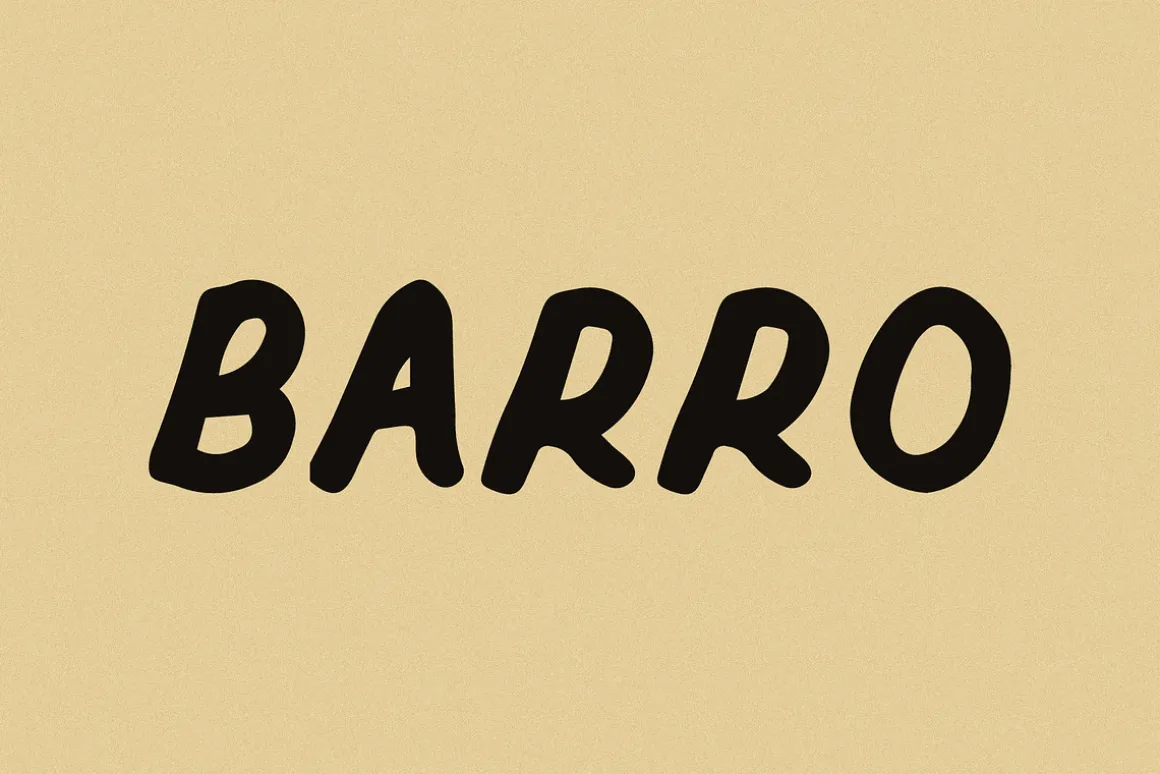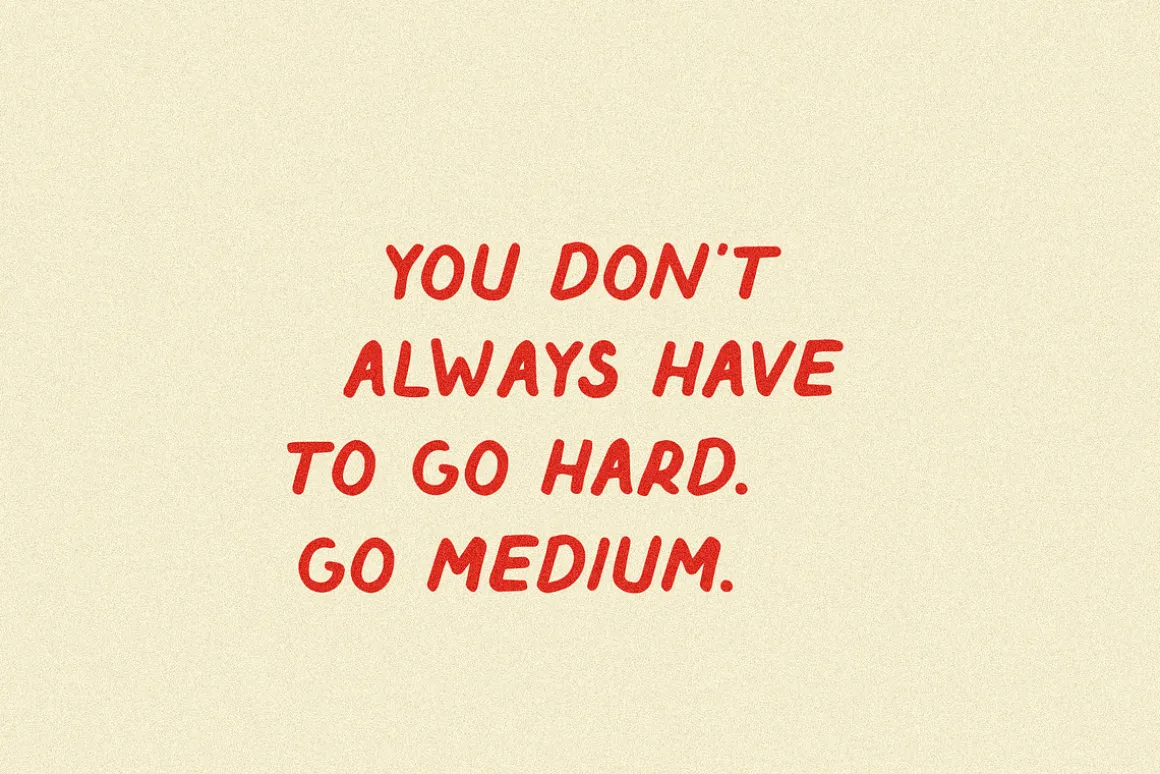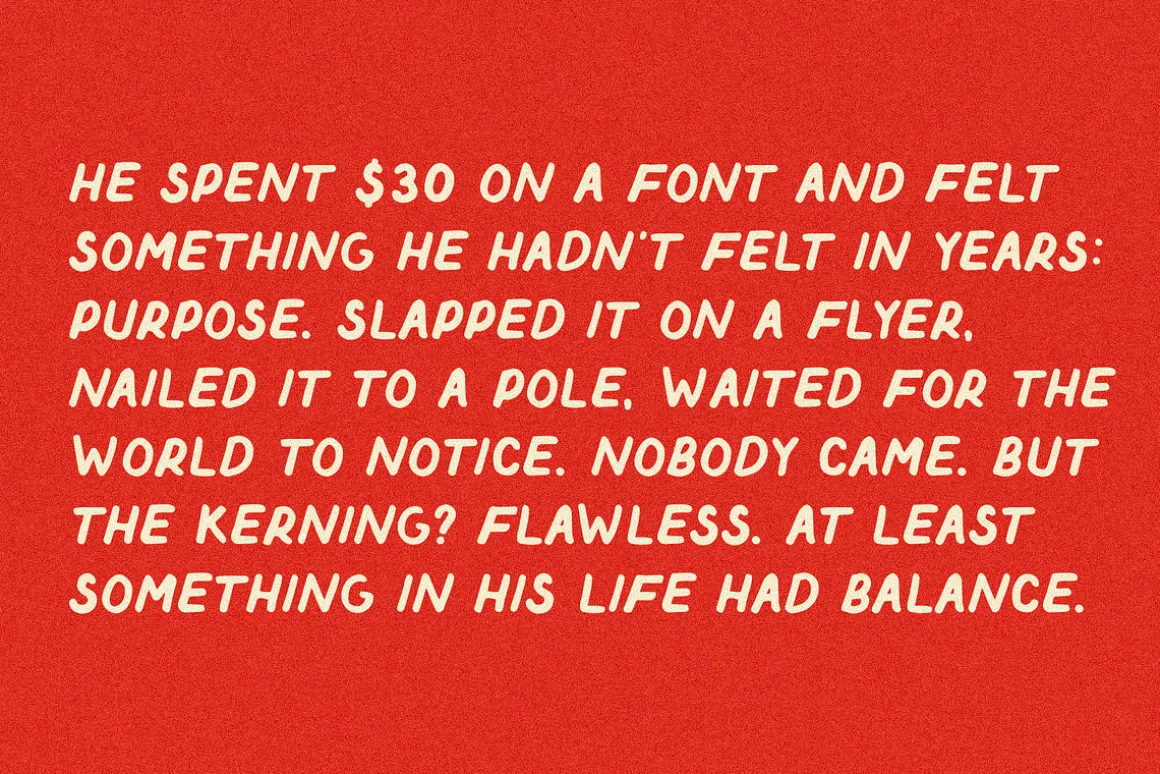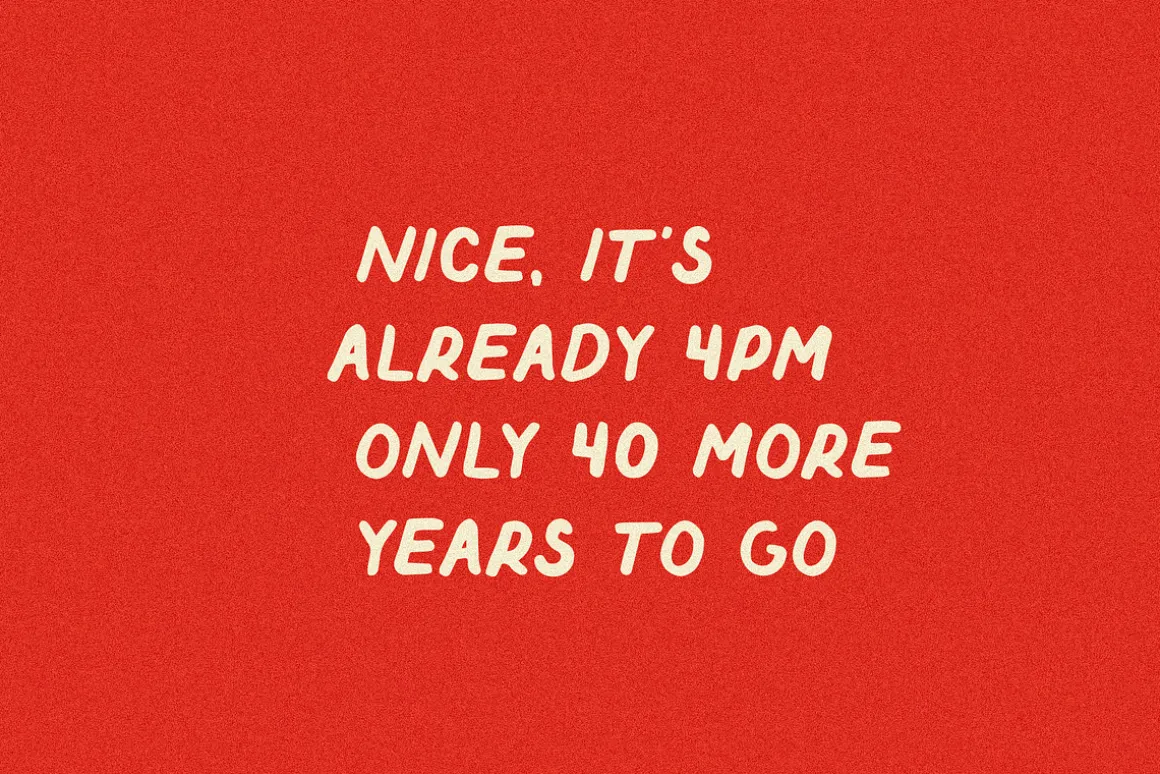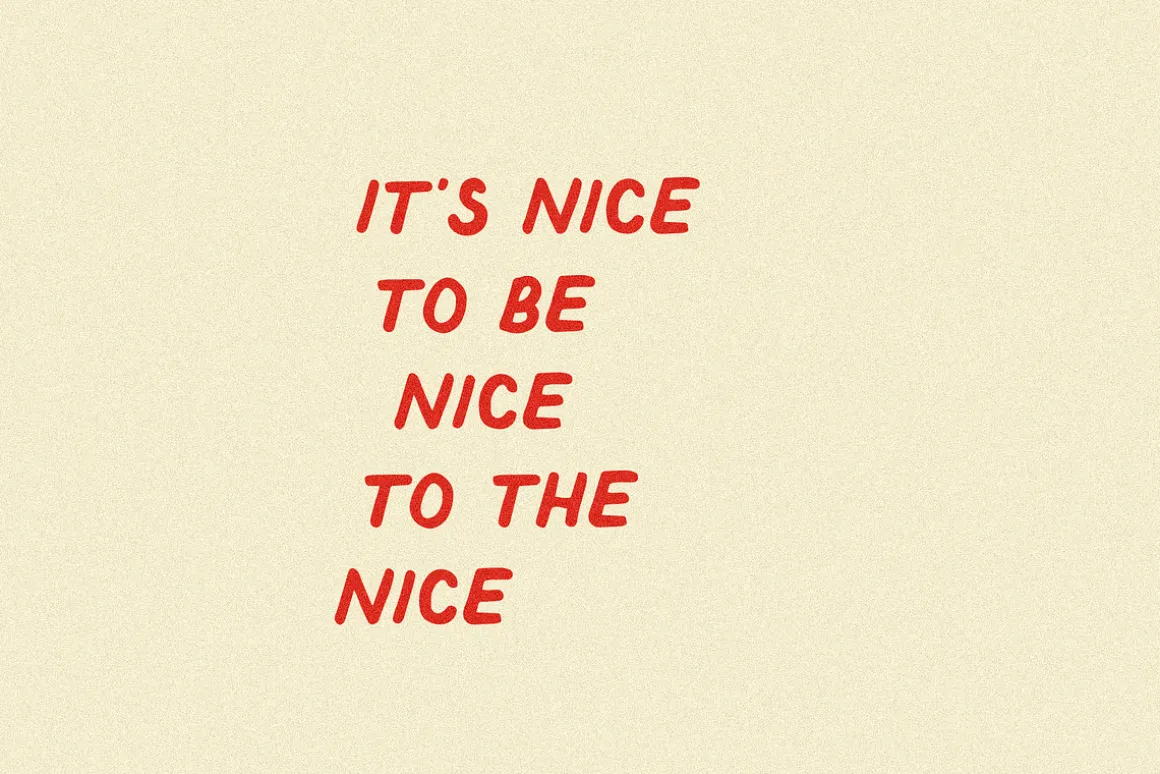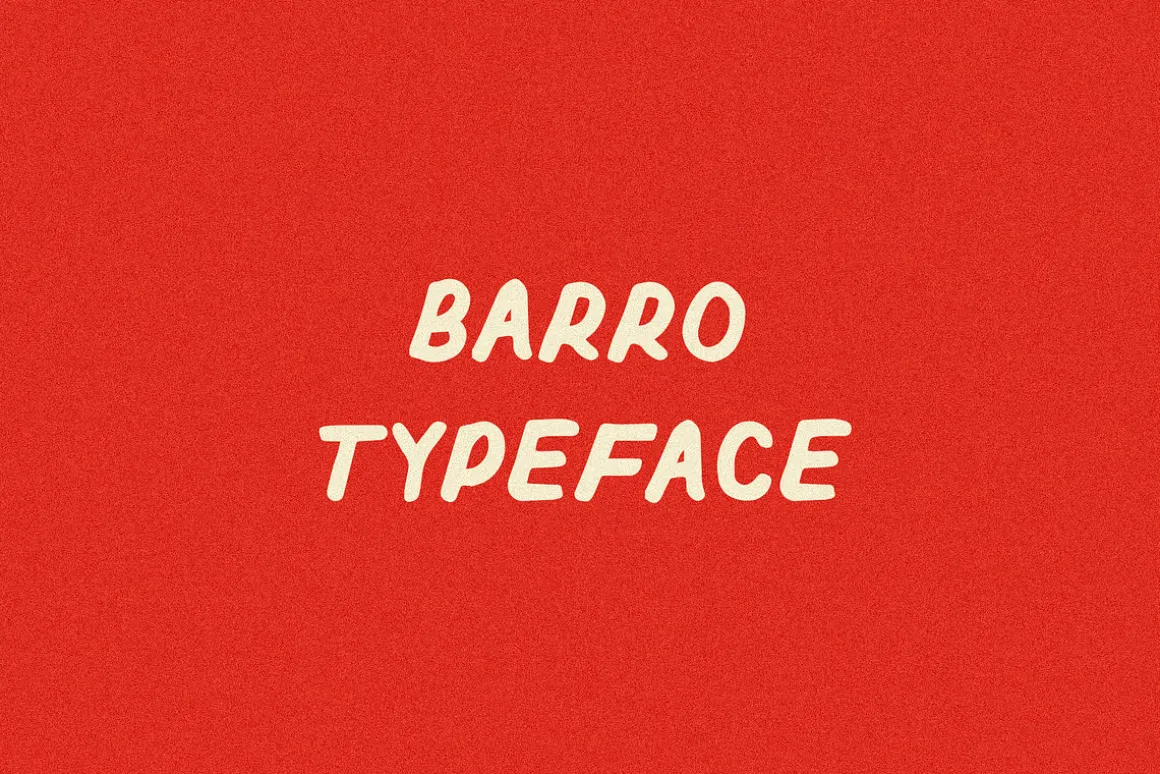
Barro is handwriting with its act together.
Rounded strokes, subtle movement, and just enough imperfection to keep things interesting. It lands somewhere between casual and considered — ideal for projects that want to feel human, not homemade.